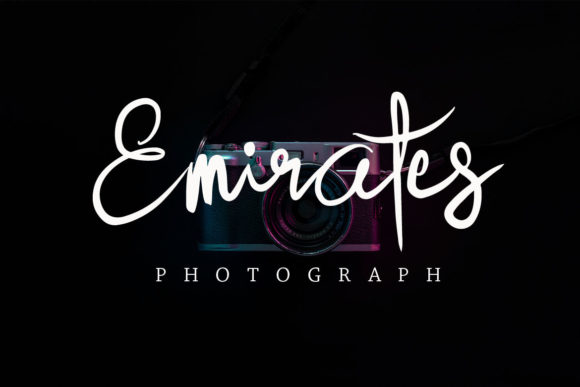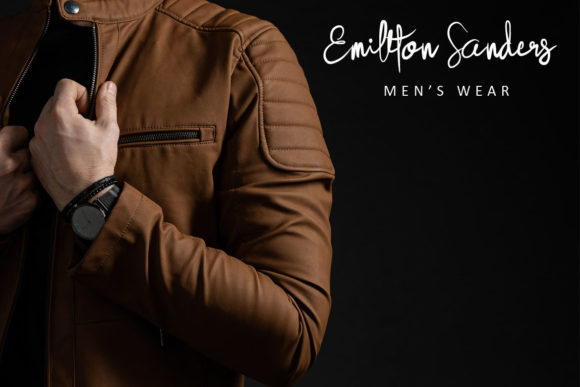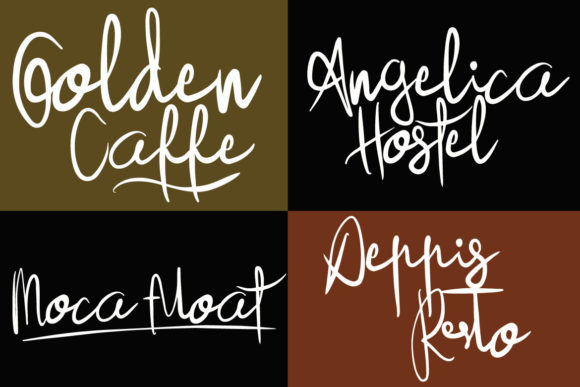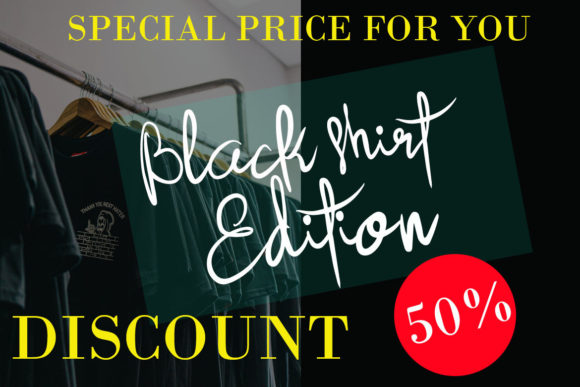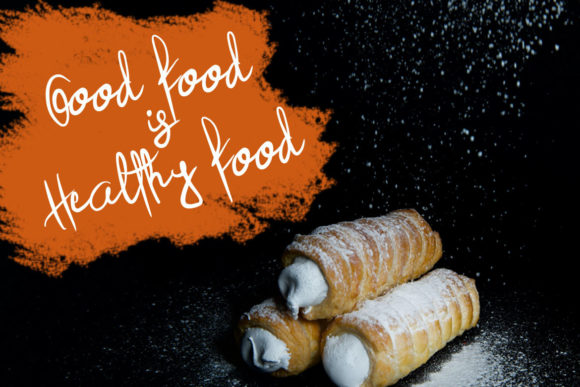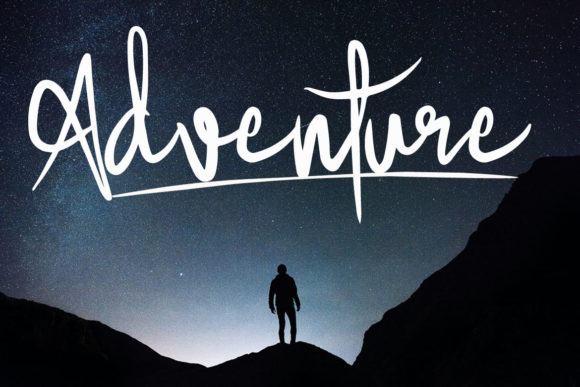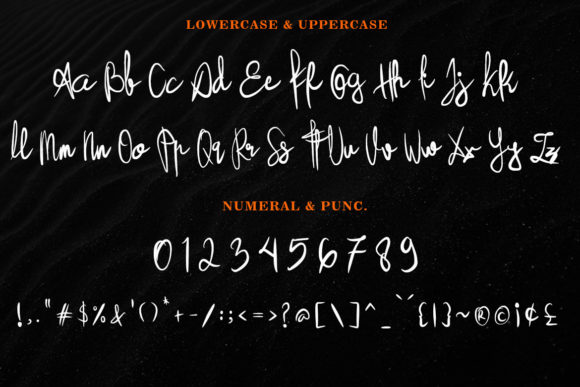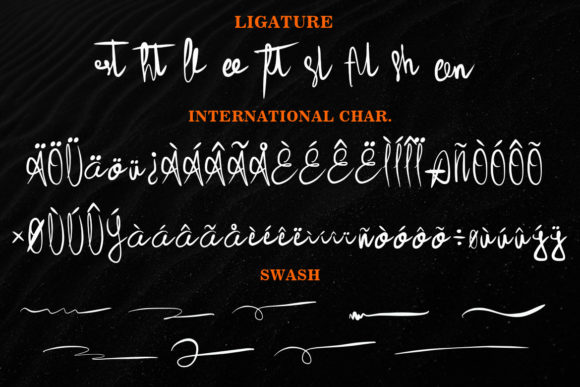
Better Flash Font
About Better Flash Font
Better Flash is a relaxed and fashionable handwritten font. It is defined by smooth curves and is perfect for fashion branding or editorial designs. Add it confidently to your projects, and you will love the results.